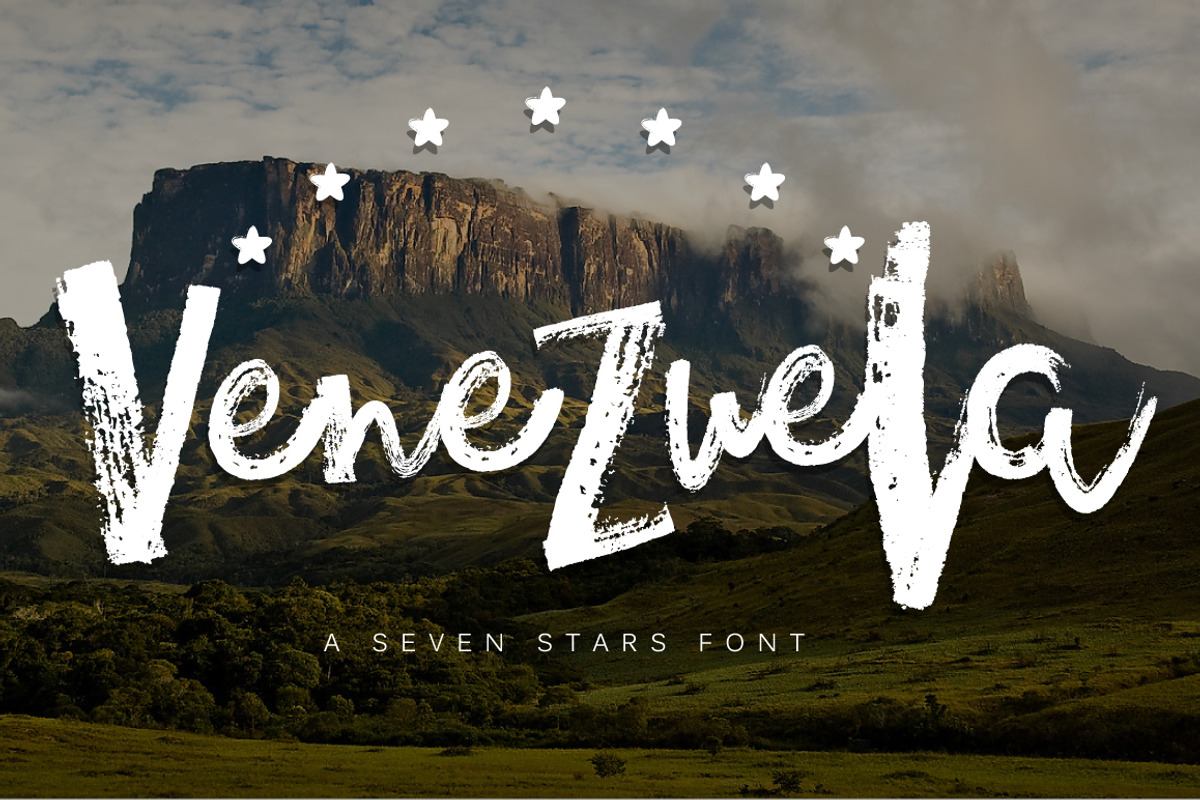
Venezuela – Dry Brush Font Free Download is a bold and expressive brush font designed to mimic the raw texture and energy of dry brush strokes. With its imperfect, hand-painted look, this font adds a gritty, artistic touch to your designs, making it perfect for logos, posters, headlines, and creative branding projects.
Its bold, rough edges and organic texture give it a dynamic and urban feel, making it ideal for projects that require a strong, creative statement. Whether you're working on streetwear branding, artistic posters, or any design that needs a bit of flair, Venezuela brings a raw, handmade vibe to your typography.